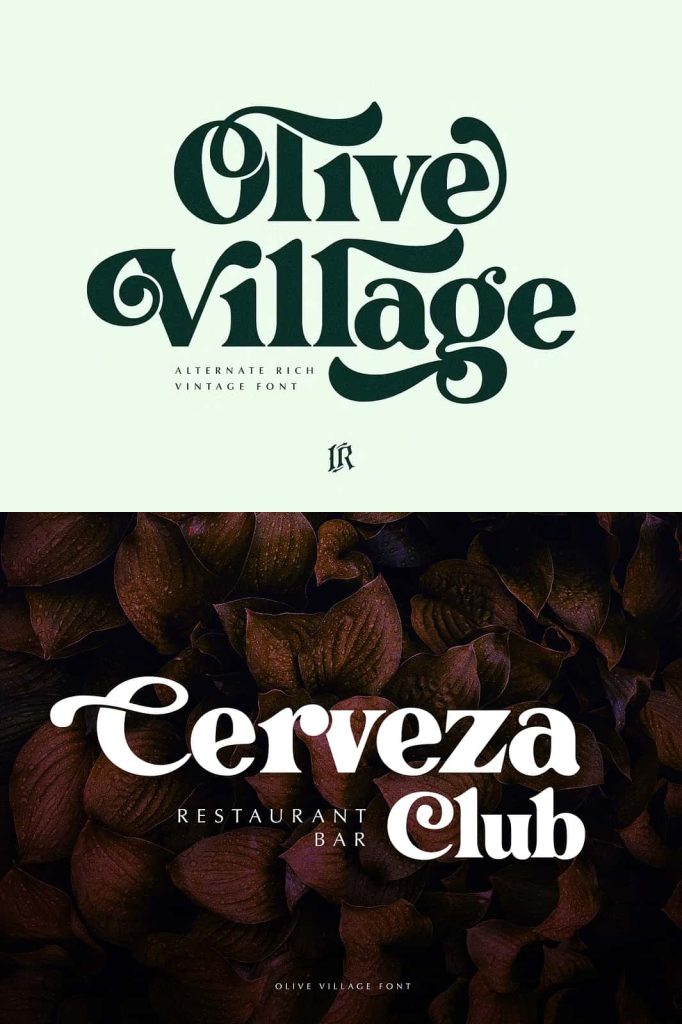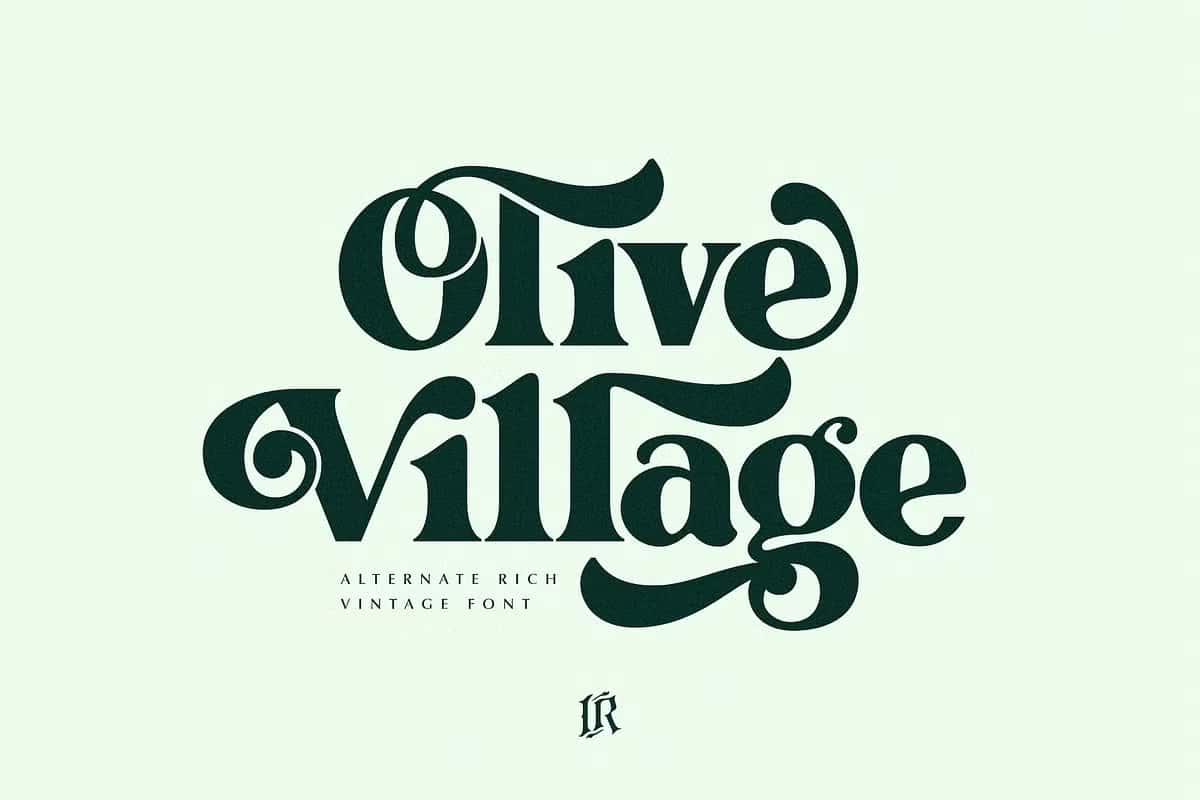
Olive Village – Vintage FontcoreografyJune 24, 2025Fonts Olive Village is a stylish vintage font inspired by 70’s groovy vibe with a touch of modernity. Download